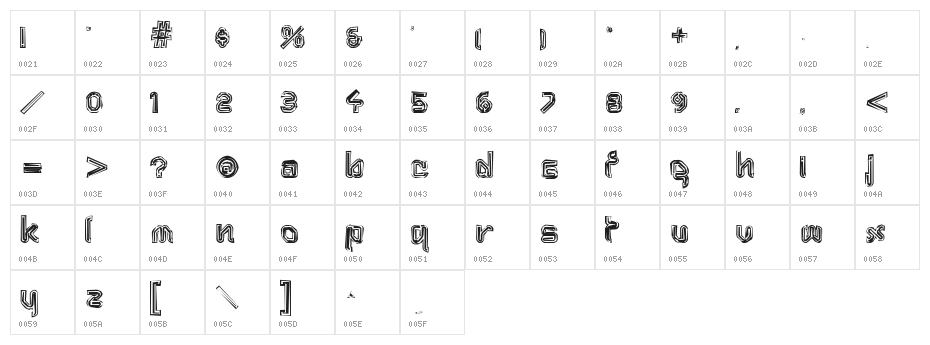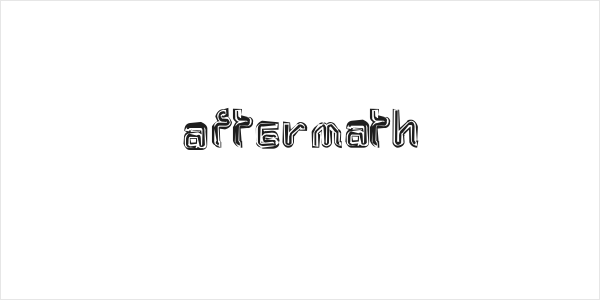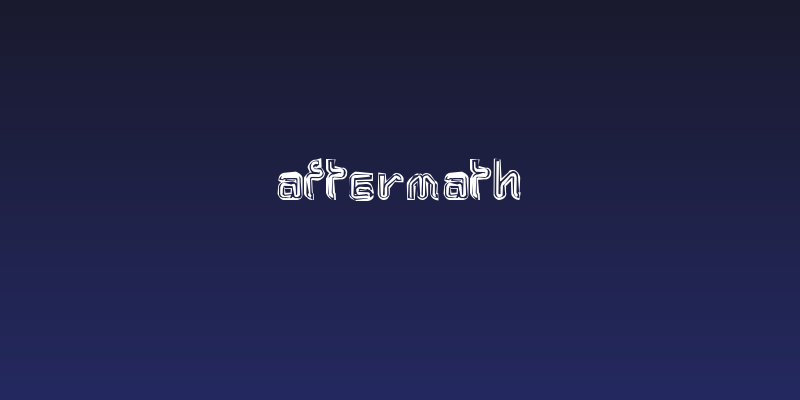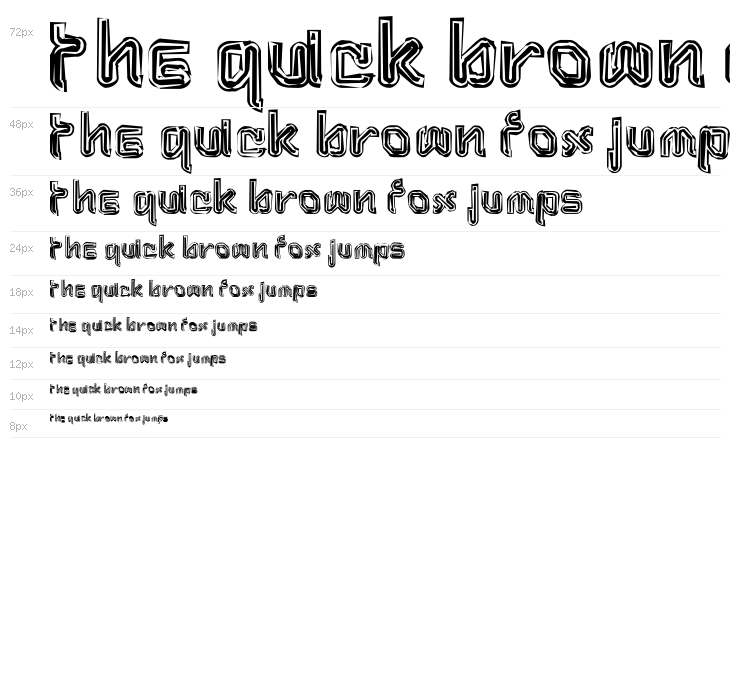
Aftermath Font
Aftermath Description
This font features a bold, three-dimensional appearance with a distinct outline that gives each character a shadowed effect. The letters are uppercase and lowercase, with a geometric and angular design that adds a modern, edgy feel. The numbers and special characters maintain this style, ensuring consistency across all glyphs. The font's unique structure makes it stand out, with a playful yet assertive personality. Its thick lines and shadowing create a strong visual impact, making it ideal for attention-grabbing designs.